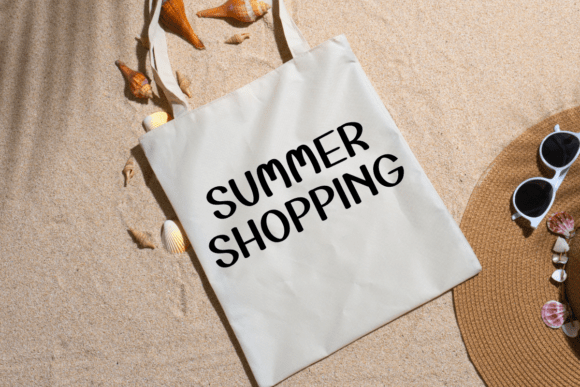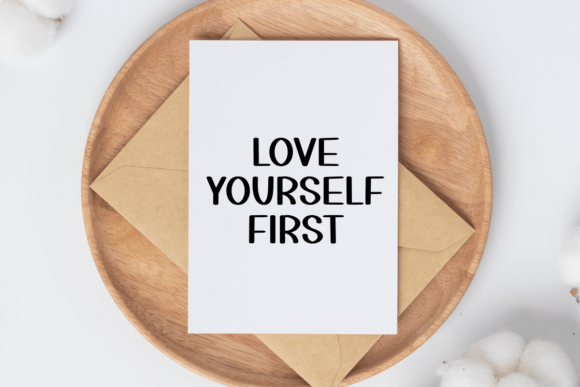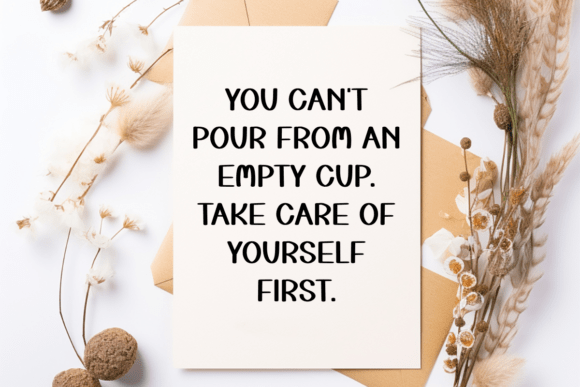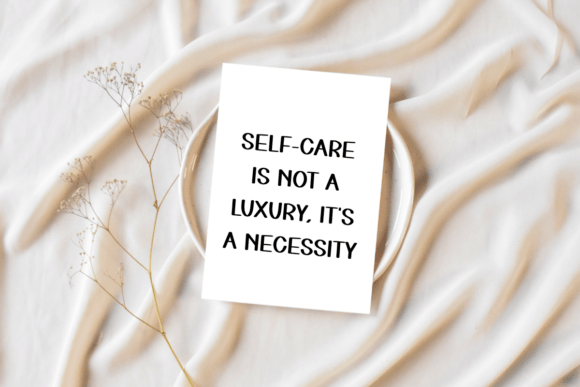
Introducing Halloween Font: The Perfect Blend of Warmth and Authenticity
Halloween is a casual handwritten font that has taken the design world by storm. Its unique blend of warmth and authenticity makes it an ideal choice for designers and crafters looking to add a personal touch to their projects. In this article, we’ll dive into the features and benefits of Halloween Font, and explore how it can elevate your designs to the next level.
Handwritten fonts have always been a popular choice among designers, and for good reason. They add a touch of warmth and personality to any design, making it more approachable and engaging. Halloween Font is no exception. Its smooth strokes, relaxed curves, and naturally balanced letterforms capture the essence of everyday handwriting, giving your designs a clean and effortless look.
Key Features of Halloween Font
- Smooth Strokes: Halloween Font features smooth, flowing strokes that give it a natural and effortless look.
- Relaxed Curves: The font’s relaxed curves add a touch of warmth and friendliness to your designs.
- Naturally Balanced Letterforms: Each letterform is carefully crafted to ensure a natural balance and harmony, making the font easy to read and visually appealing.
- Clean and Approachable Style: Halloween Font has a clean and approachable style that makes it perfect for a wide range of design applications.
Ideal for a Variety of Design Applications
Halloween Font is a versatile font that can be used in a variety of design applications, including:
- Quotes: Add a personal touch to your quotes and sayings with Halloween Font’s warm and inviting style.
- Branding: Use Halloween Font to create a unique and memorable brand identity that stands out from the crowd.
- Packaging: Add a touch of personality to your packaging designs with Halloween Font’s clean and approachable style.
- Social Media Posts: Use Halloween Font to create engaging and eye-catching social media posts that grab attention.
Benefits of Using Halloween Font
So why choose Halloween Font for your next design project? Here are just a few benefits of using this amazing font:
- Readability: Halloween Font is designed to be easy to read, making it perfect for body text and captions.
- Charm: The font’s unique blend of warmth and authenticity adds a touch of charm to any design.
- Versatility: Halloween Font can be used in a wide range of design applications, from quotes and branding to packaging and social media posts.
- Effortless Flow: The font’s smooth strokes and relaxed curves create an effortless flow that’s easy on the eyes.
Tips for Using Halloween Font
Here are a few tips for getting the most out of Halloween Font:
- Use it with a bold font: Pair Halloween Font with a bold font to create a striking contrast that grabs attention.
- Experiment with colors: Try out different colors and textures to add depth and interest to your designs.
- Keep it simple: Don’t be afraid to keep things simple and clean – Halloween Font is designed to shine on its own.
Halloween Font is a unique and versatile font that’s perfect for designers and crafters looking to add a personal touch to their projects. With its smooth strokes, relaxed curves, and naturally balanced letterforms, it’s ideal for a wide range of design applications. Whether you’re creating quotes, branding, packaging, or social media posts, Halloween Font delivers both readability and charm. So why wait? Give Halloween Font a try today and see the difference it can make in your designs!